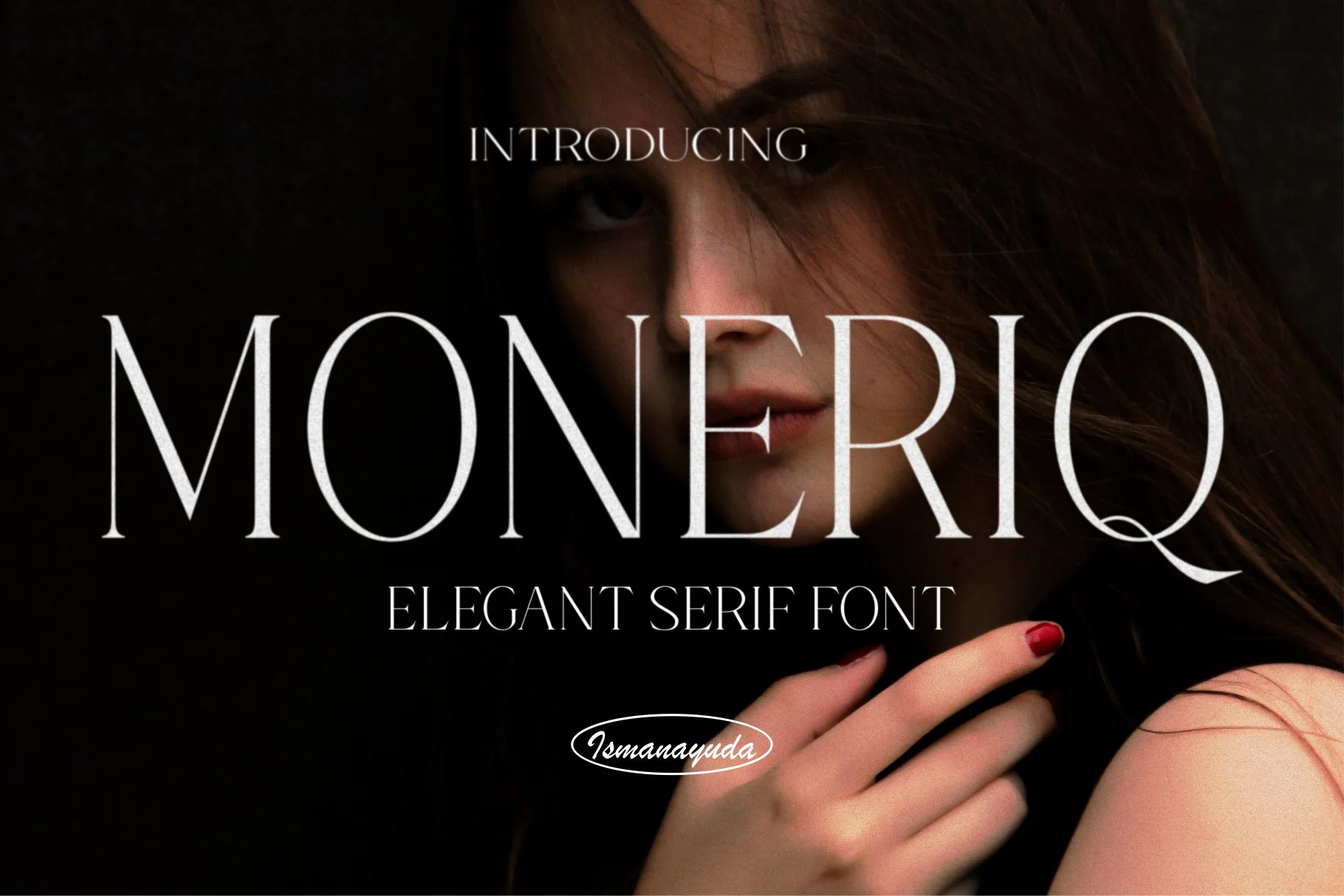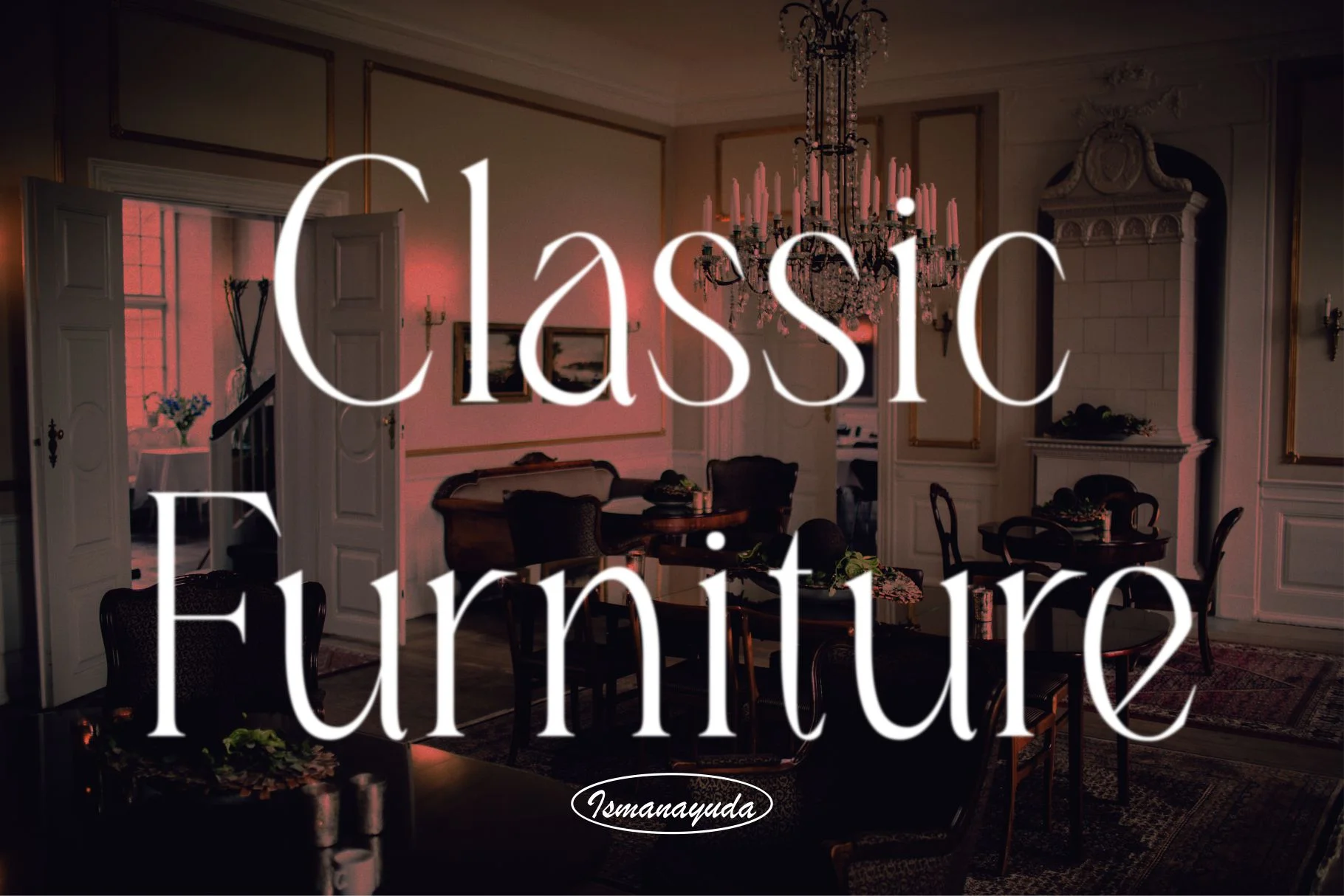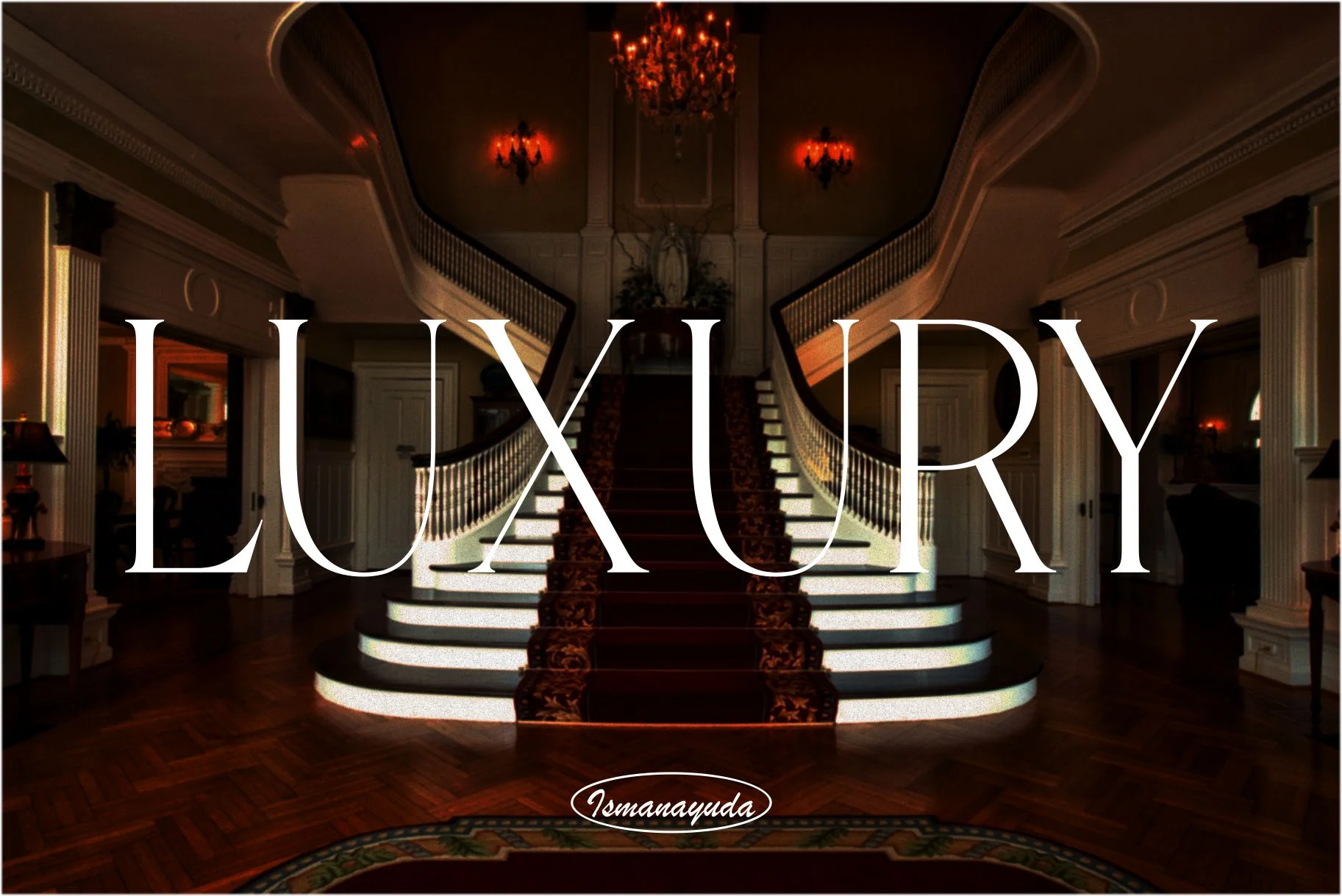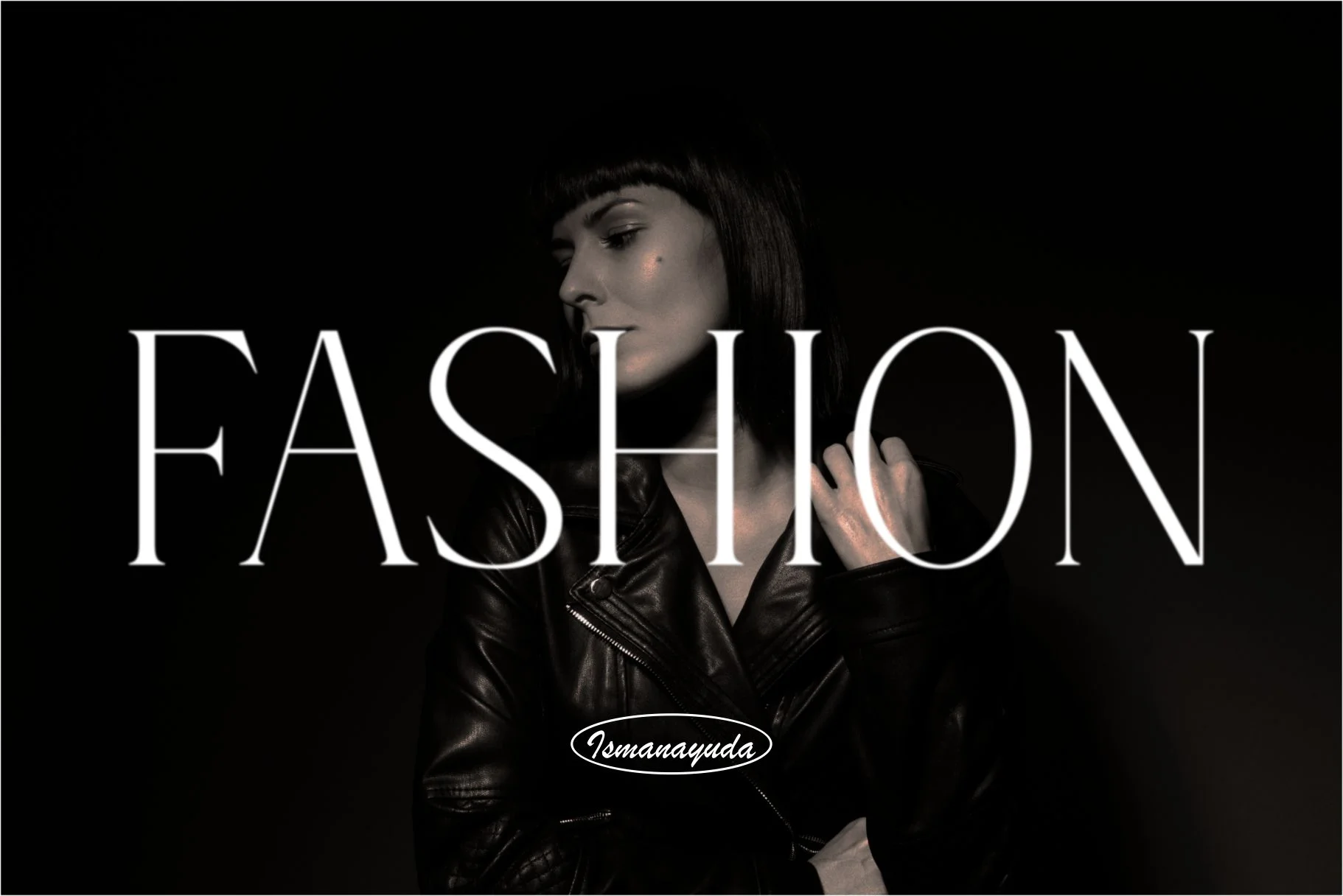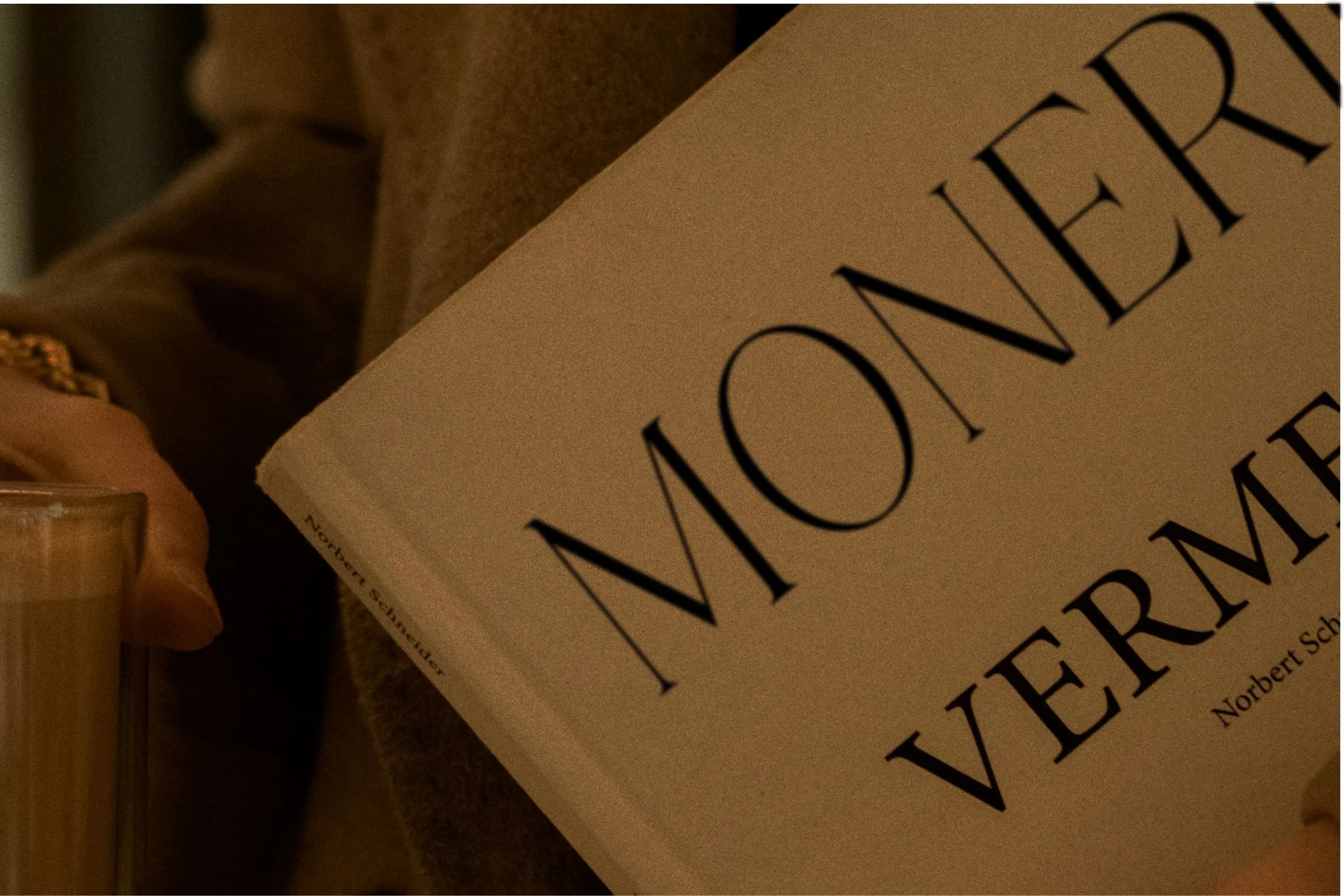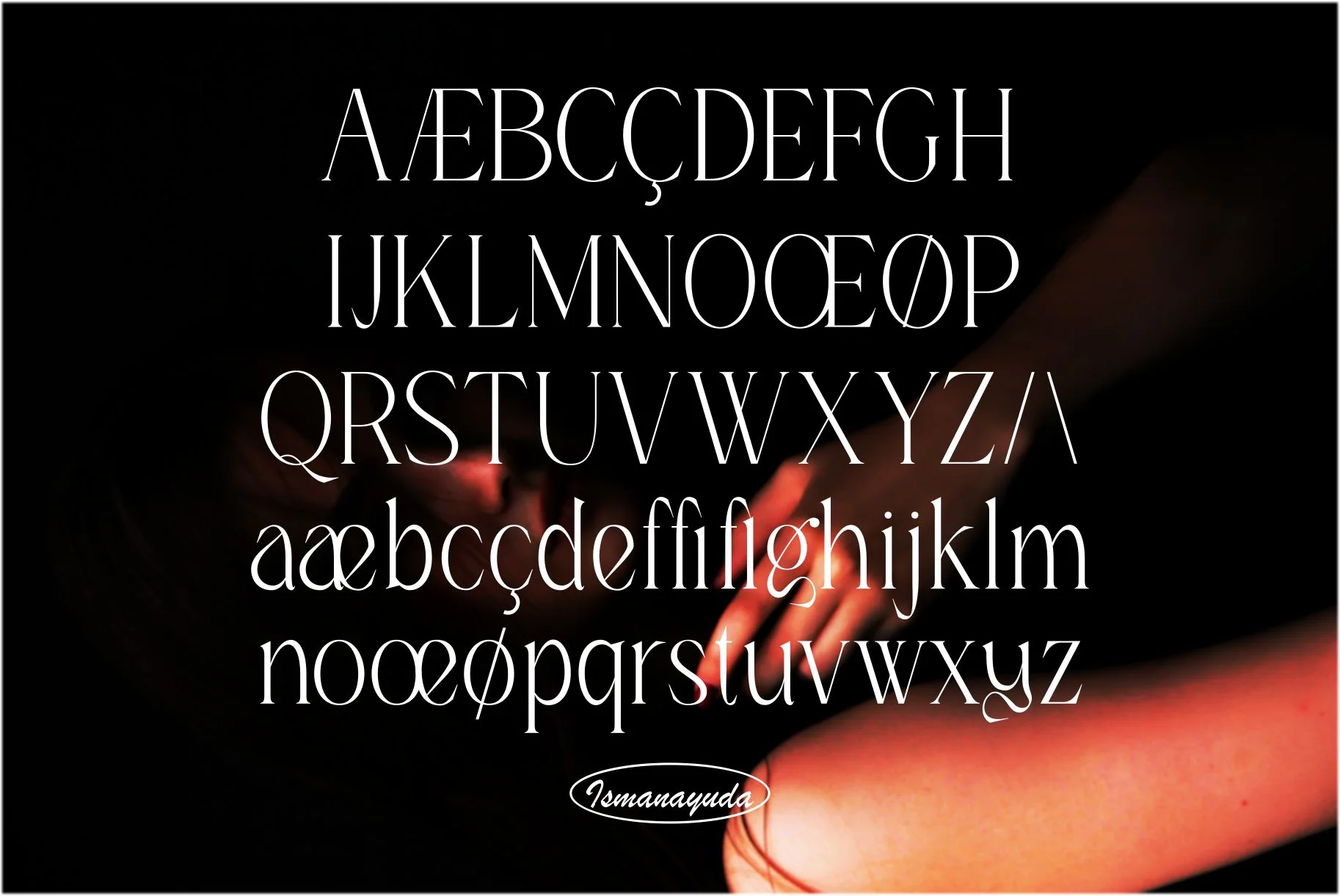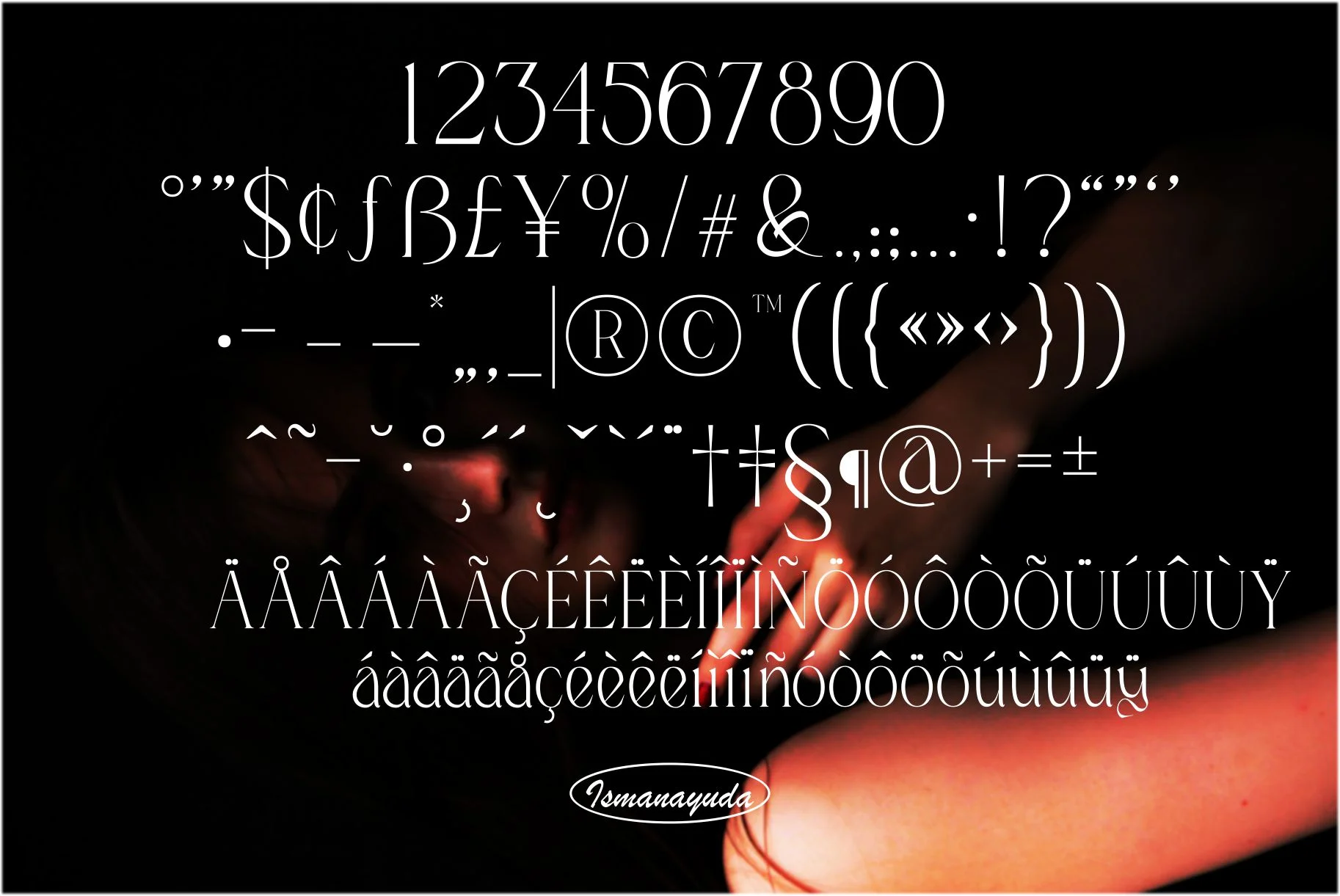
Moneriq
Moneriq is characterized by its refined curves, graceful strokes, and high-contrast letterforms that evoke a sense of timeless elegance and sophisticated class. It features long, sharp serifs and a modern, high-fashion aesthetic similar to those used by premium luxury brands. This font is particularly effective for high-end branding, sophisticated editorial layouts, wedding stationery, and upscale packaging designs where a touch of prestige is required.